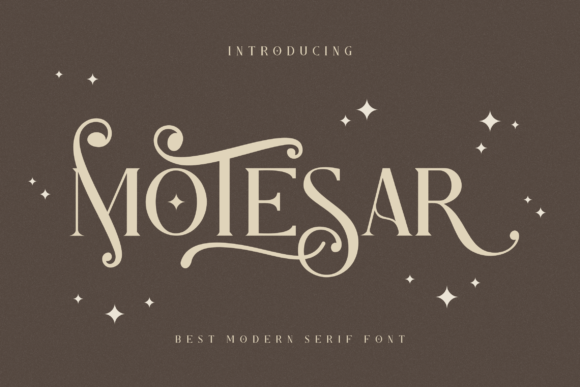
Behold, the magnificent Motesar font, a modern, bold, and authentic serif font that will take your branding projects to new heights! Prepare to be enchanted by its captivating personality, perfect for creating logos, T-shirt designs, and an array of creative products that demand attention. With Motesar, your work will shine with distinction, leaving an indelible mark on your audience. Dive into the world of Motesar and unlock a font that not only elevates your designs but also sparks conversations.
Motesar isn't just a font; it's an experience. It's the perfect companion for meme enthusiasts, who can now express their witty thoughts with a font that radiates uniqueness. Motesar's bold strokes and captivating curves add a touch of charm and humor to your memes, making them stand out in the vast ocean of internet content. Unleash your creativity and let Motesar be the voice of your viral masterpieces.
From the creative mind of Monotype, Motesar is more than just a font; it's a gateway to a world of possibilities. Its versatility allows it to effortlessly adapt to any branding project, whether you're creating a captivating logo, designing a T-shirt that speaks volumes, or crafting creative products that leave a lasting impression. With Motesar, your designs will exude confidence and authenticity, making them impossible to ignore.